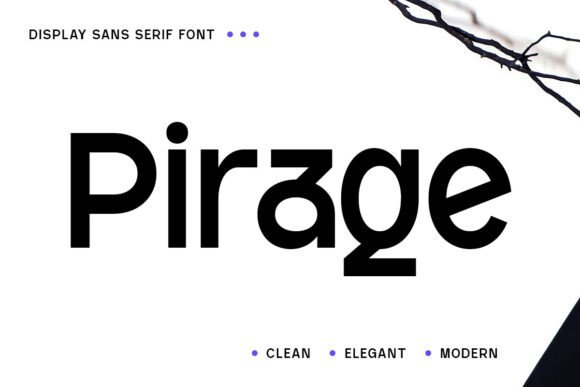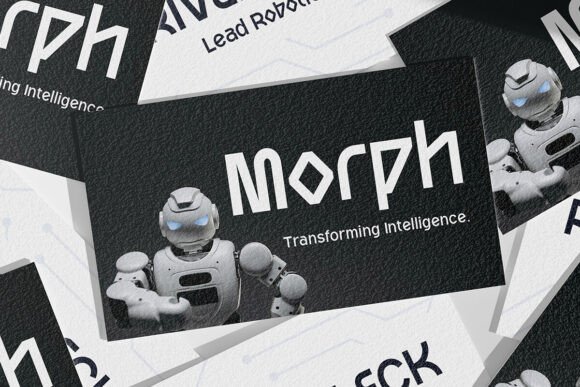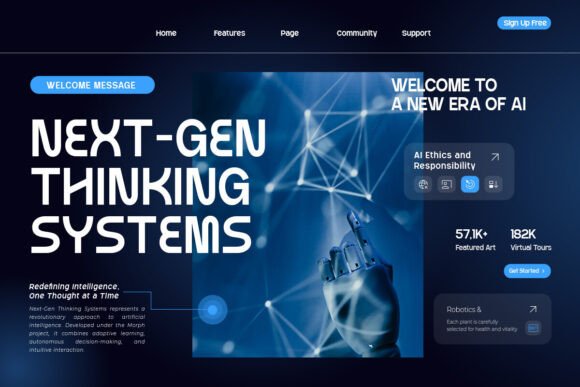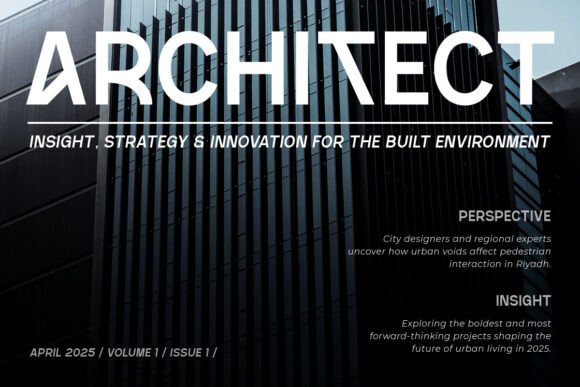
Pirage Font: Modern Sans Serif for Sleek Logo Design & Branding
About the Pirage Font
The Pirage Font is here to transform your projects with its distinctive character and style. Pirage is a modern display sans-serif font built on clarity, precision, and geometric confidence. It’s intentionally crafted to feel clean and commanding, while still bringing a dynamic, cutting-edge energy to whatever platform it touches. The overall vibe is minimal yet distinct—its sharp verticals, closed counters, and asymmetrical balance give it a technical sleekness that feels futuristic without sacrificing legibility. With high legibility and visual impact, Pirage thrives in professional contexts where sharpness and control are key.
The letterforms lean toward the square and modular, with unexpected details such as custom terminals and alternate glyphs that offer extra attitude for digital innovation, branding systems, and UI-heavy environments. This font isn’t made to sit quietly—it’s meant to lead in settings like tech presentations, app interfaces, startup branding, and architectural proposals. Pirage embodies the DNA of modernist typography but strips away the excess to stay lean, agile, and unmistakably relevant for 21st-century design.
From bold headlines on a homepage to futuristic branding packs or signage on urban walls, Pirage brings a reliable voice of modernity to the forefront. It’s a font that commands attention while keeping things precisely in line.